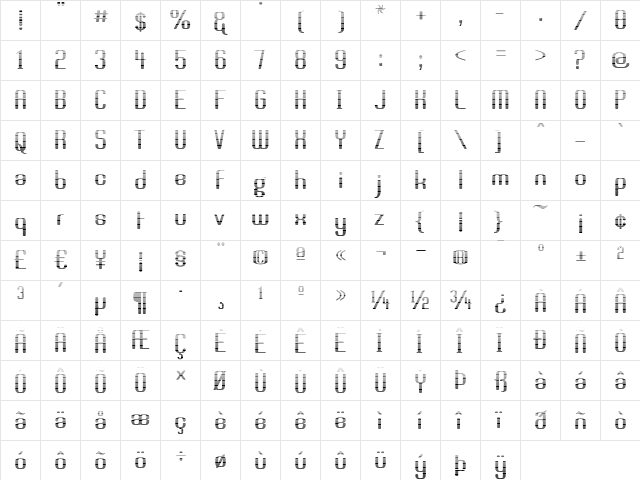
Brassiere Line Regular
Design Context for Brassiere Line Typeface
Brassiere Line is a composed and adaptable typeface that performs quietly and consistently across a wide range of design contexts.